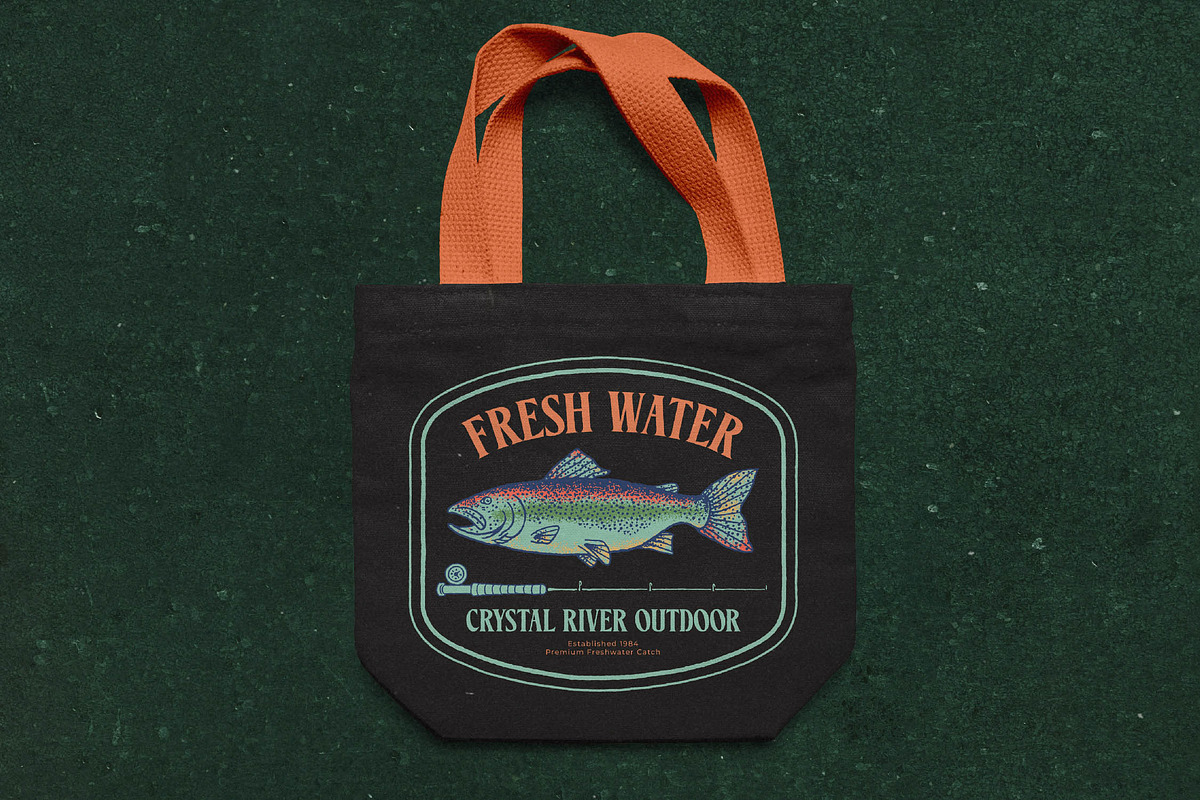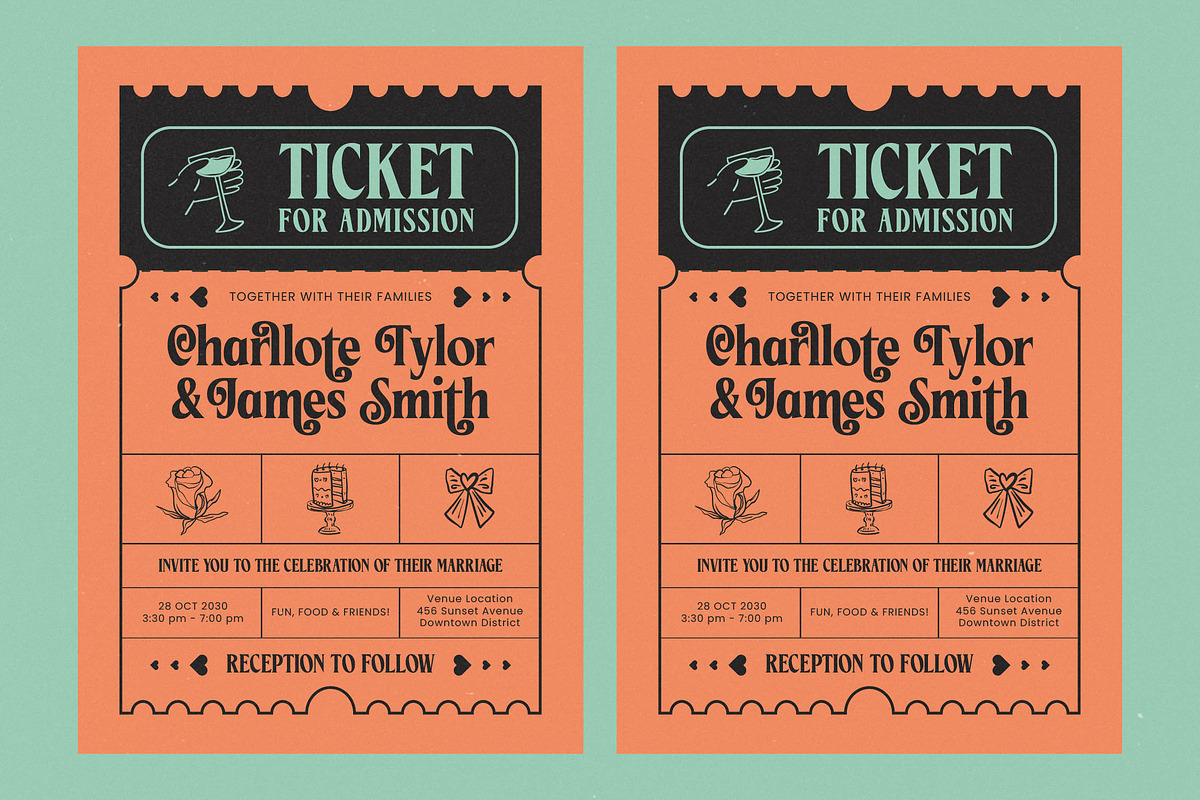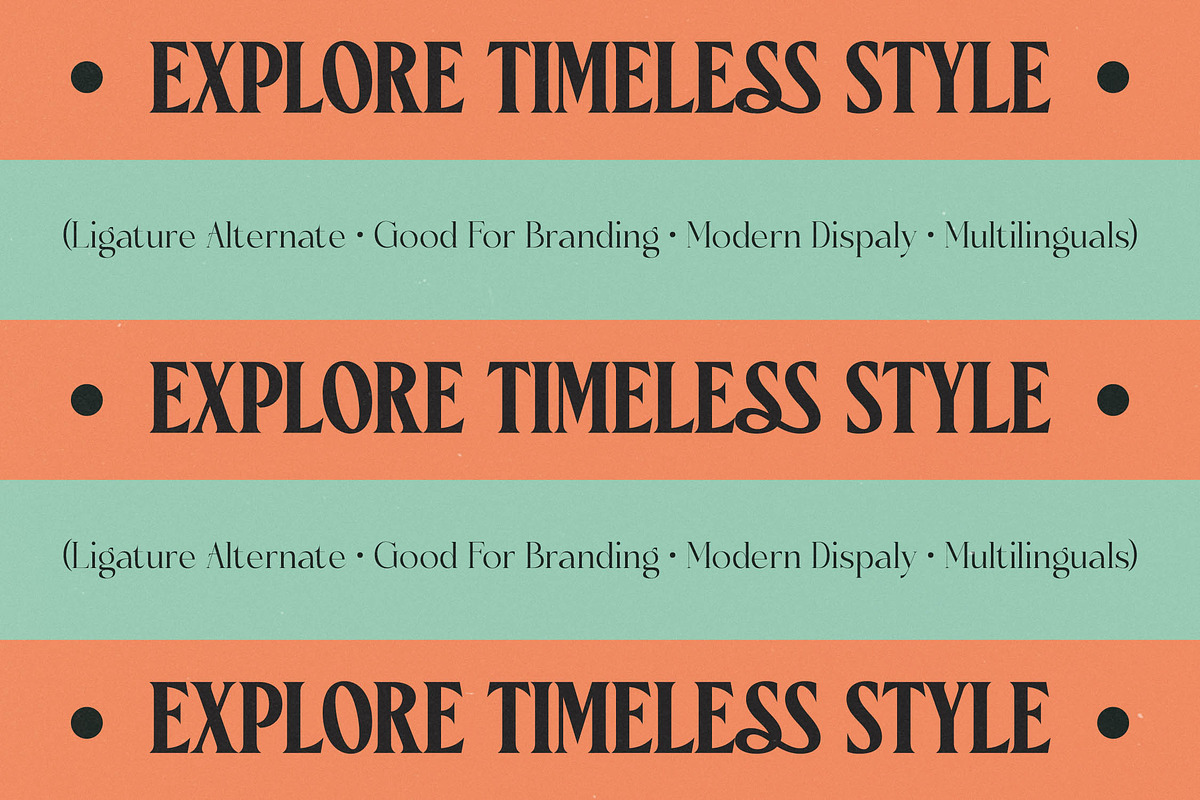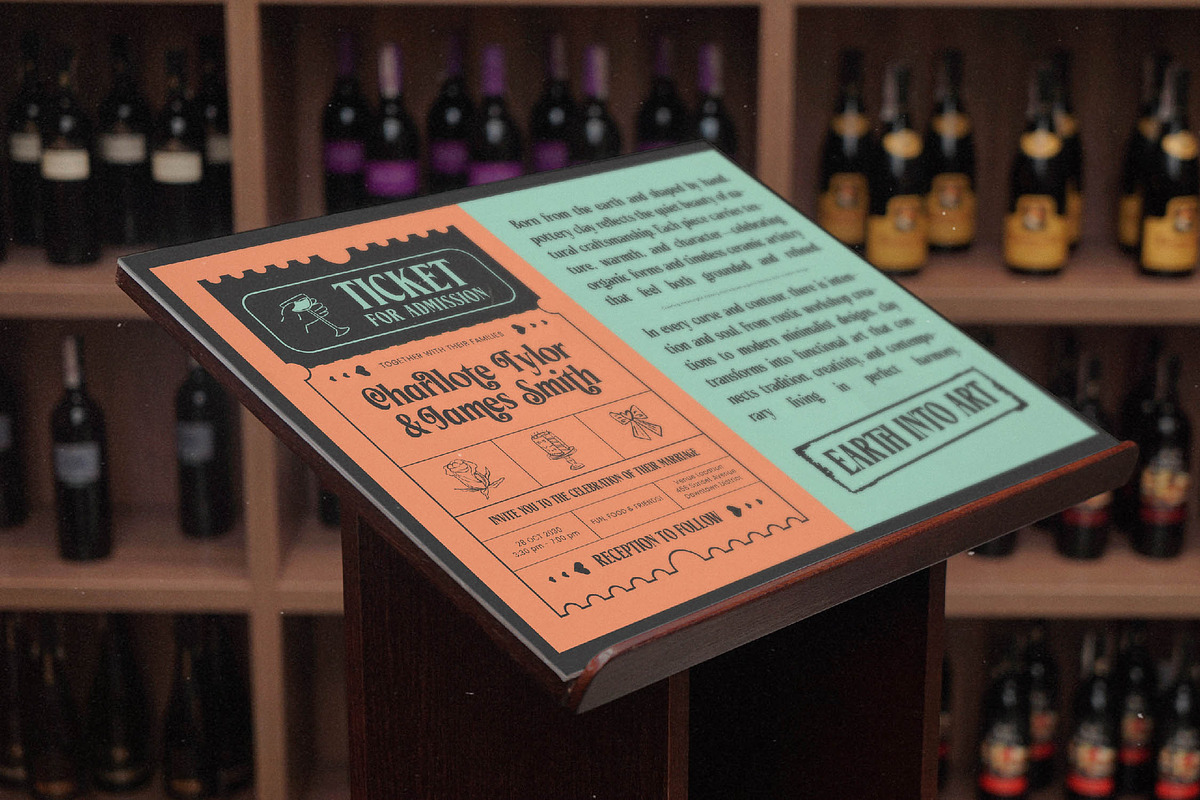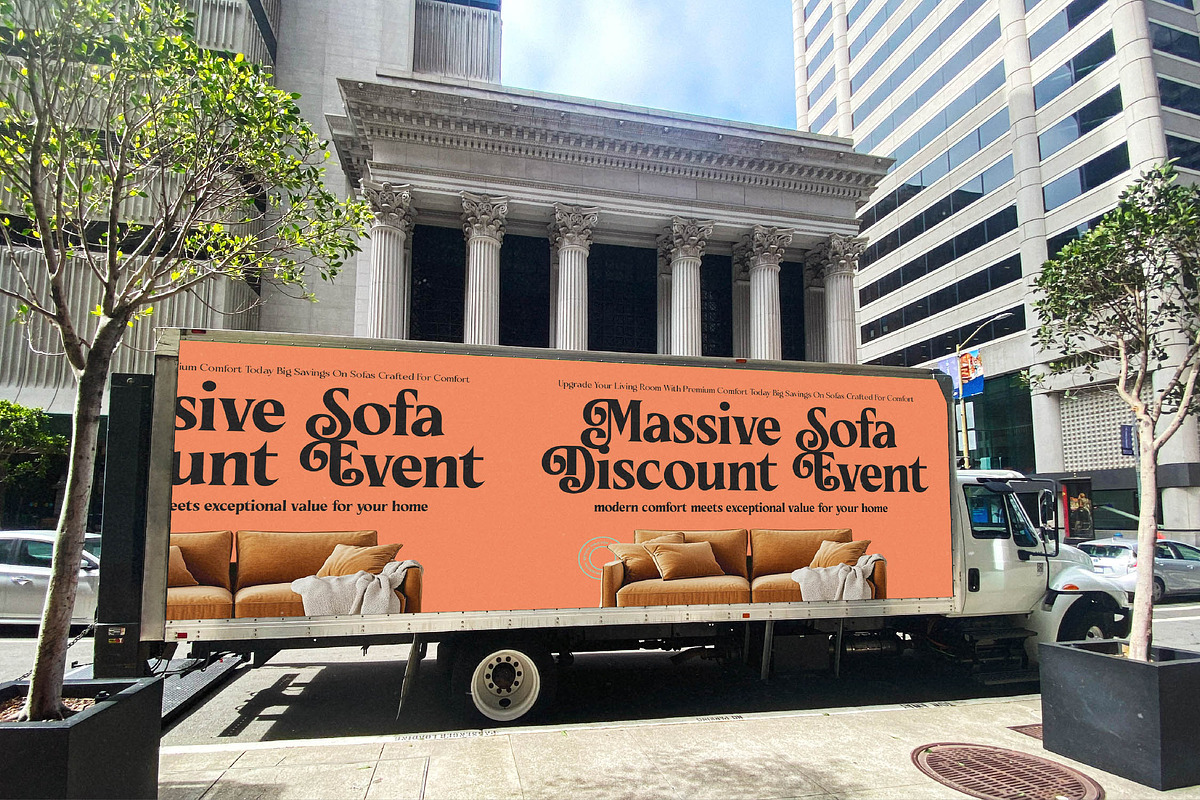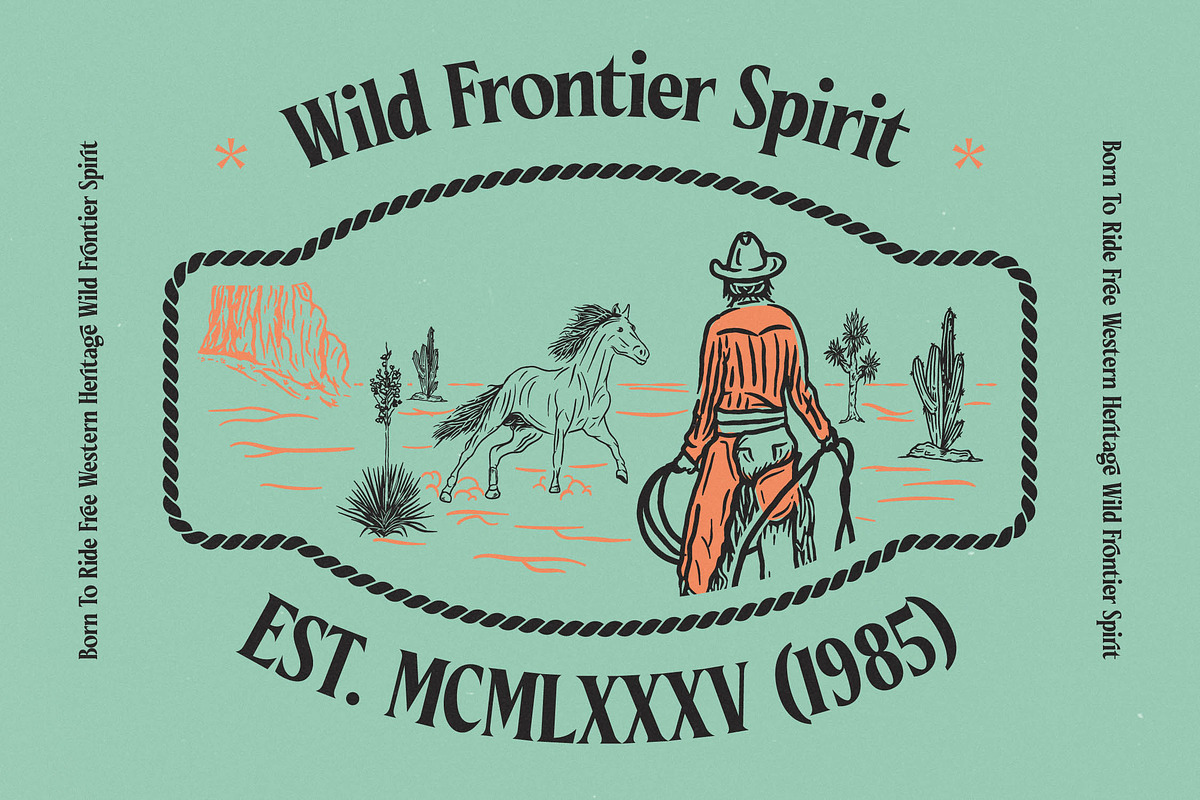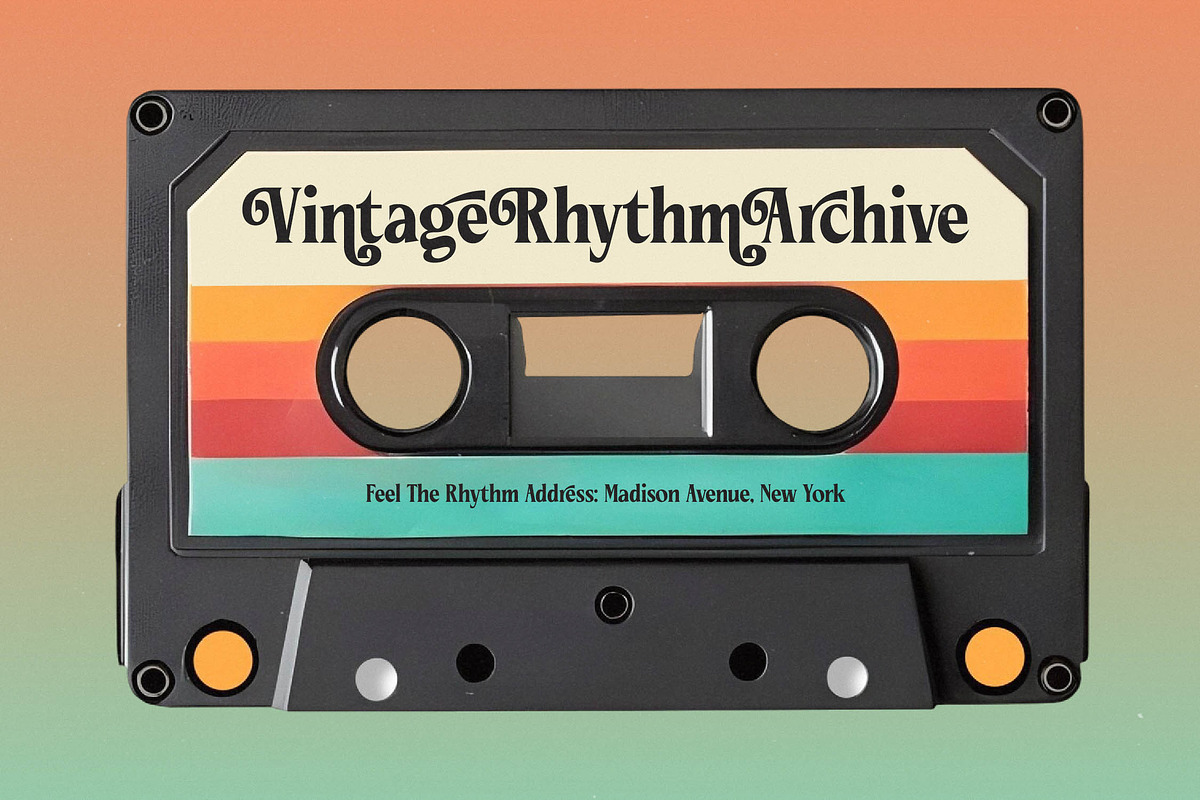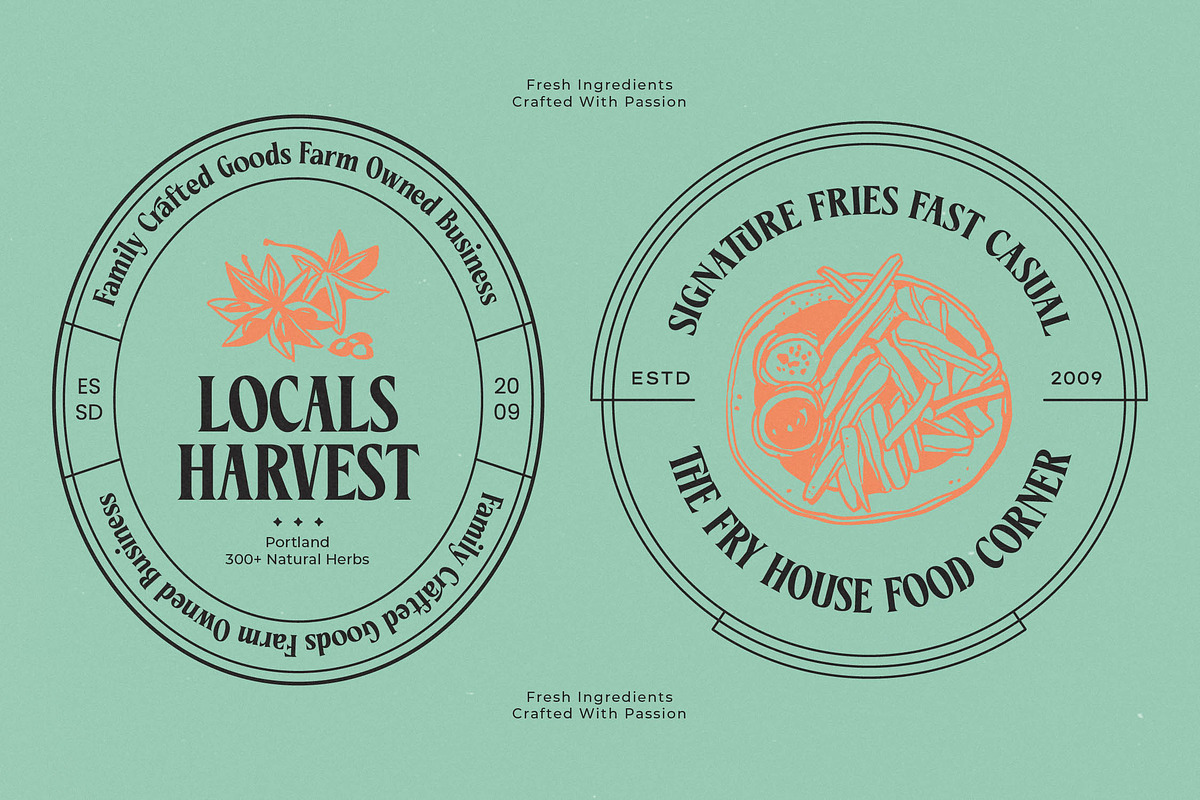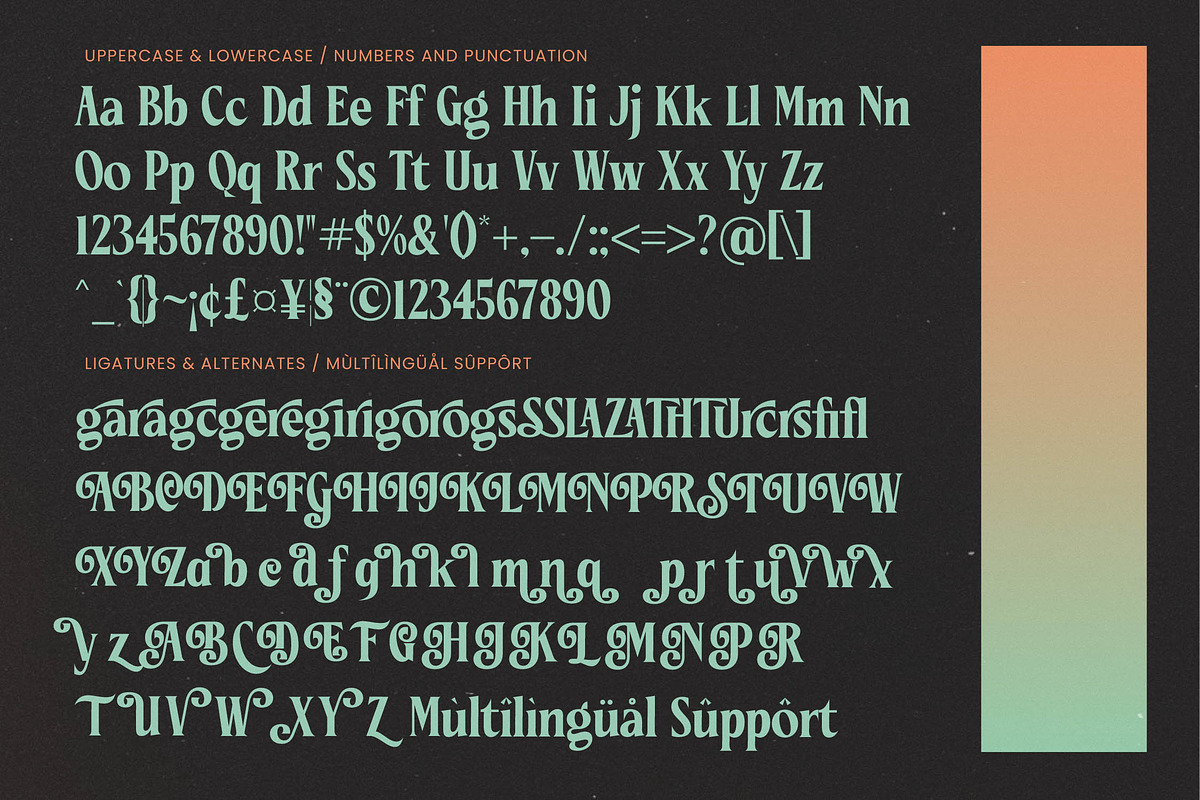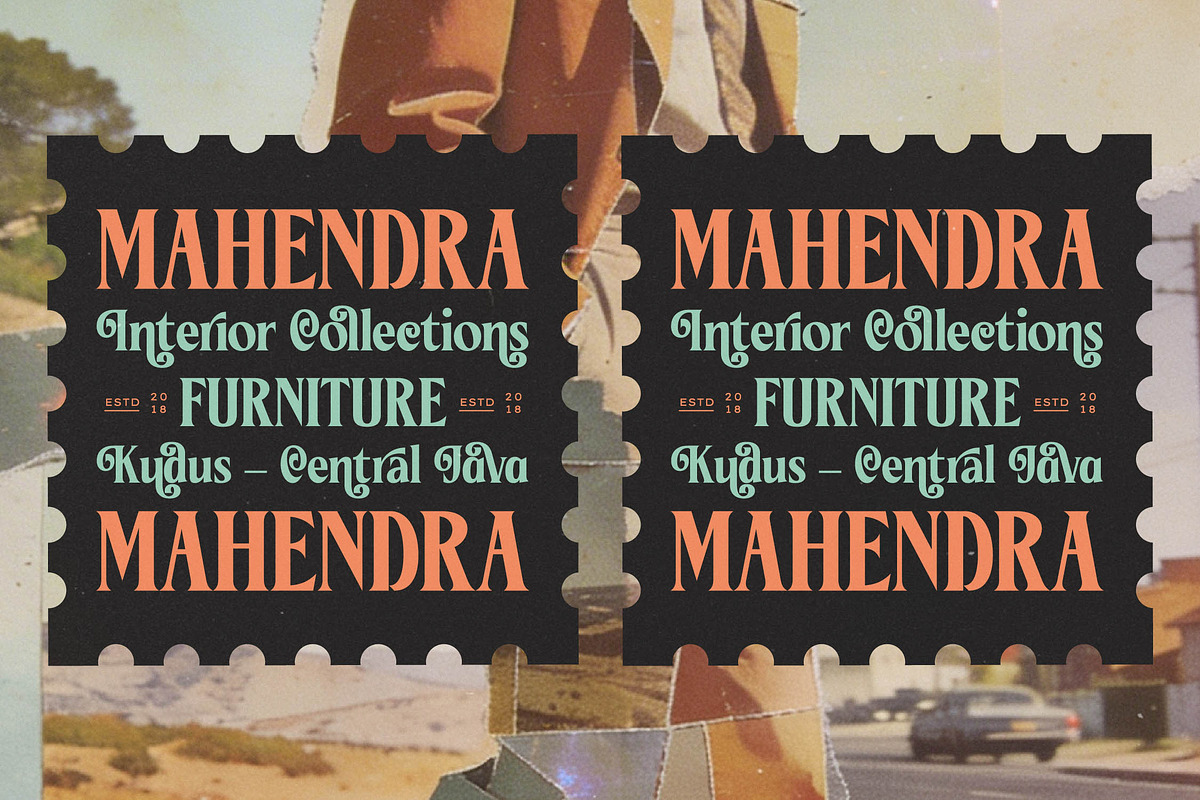
Ceganf Modern High Contrast Serif
Step into a world of refined elegance with Ceganf, a typeface designed to elevate every word into a work of art. This stunning high-contrast serif brings a sophisticated touch to your creative projects, ensuring your message is delivered with poise and prestige.
Inspired by the golden age of editorial design and the timeless allure of vintage theater posters, this font captures a unique balance between retro nostalgia and forward-thinking aesthetics. Its sweeping curves and sharp terminals evoke a sense of heritage reimagined for the contemporary eye.
The modern serif display characteristics of this typeface make it an essential tool for creating luxury typography that demands attention. With its high-contrast serif design, it serves as a powerful editorial font that guarantees a lasting branding impact in any high-end environment.
Aligning perfectly with the current modern serif trend, this typeface meets the demands of designers seeking editorial display fonts that offer more than just legibility. Its character-driven typography allows for expressive layouts that stand out in an increasingly crowded digital landscape.
This versatile typeface is the perfect choice for high-impact logo design and comprehensive branding identity systems. Whether you are working on editorial layouts, luxury packaging, romantic wedding stationery, or high-end fashion lookbooks, it provides the visual gravity needed to anchor your designs.
The package is loaded with over 68 alternates and 21 unique ligatures, including graceful swashes that add a bespoke feel to your text. It also features full multilingual support and international characters, making it a global solution for sophisticated design.
Numerals
Punctuations (OpenType Standard)
Accents (Multilingual Characters)
Ligatures and Alternative Style Stylistic Set